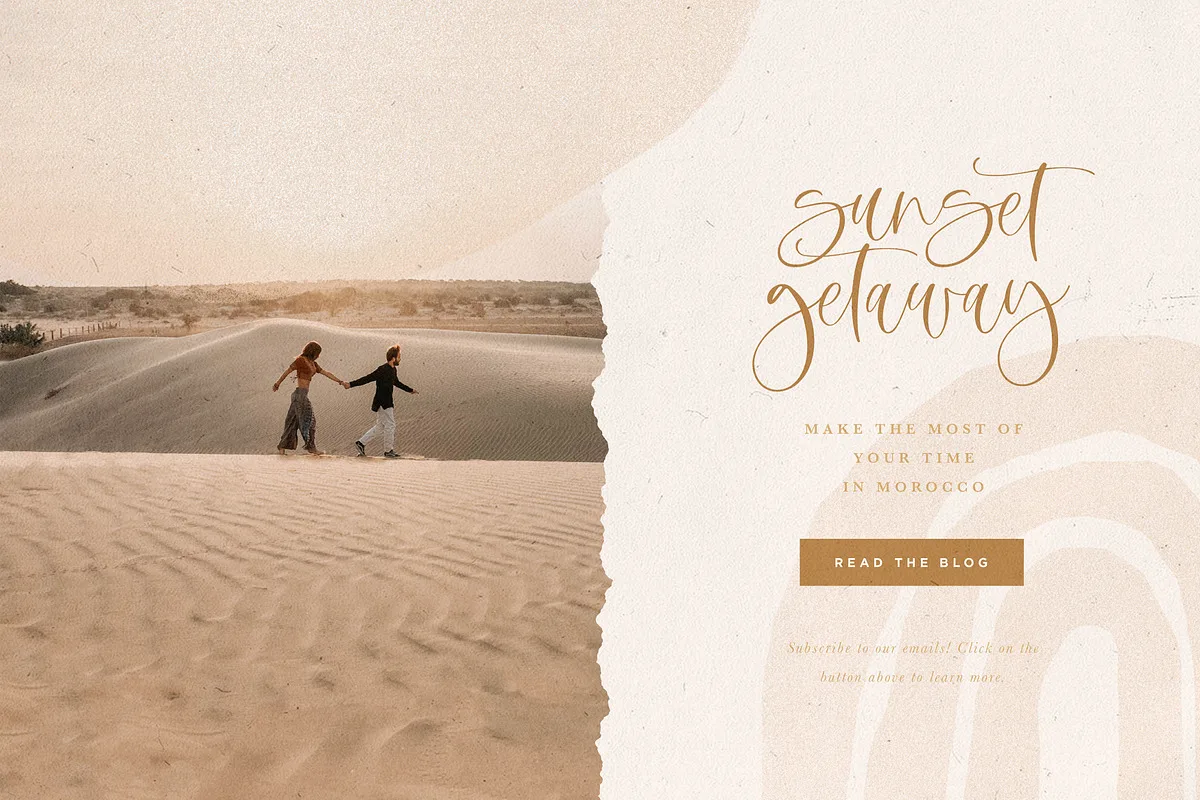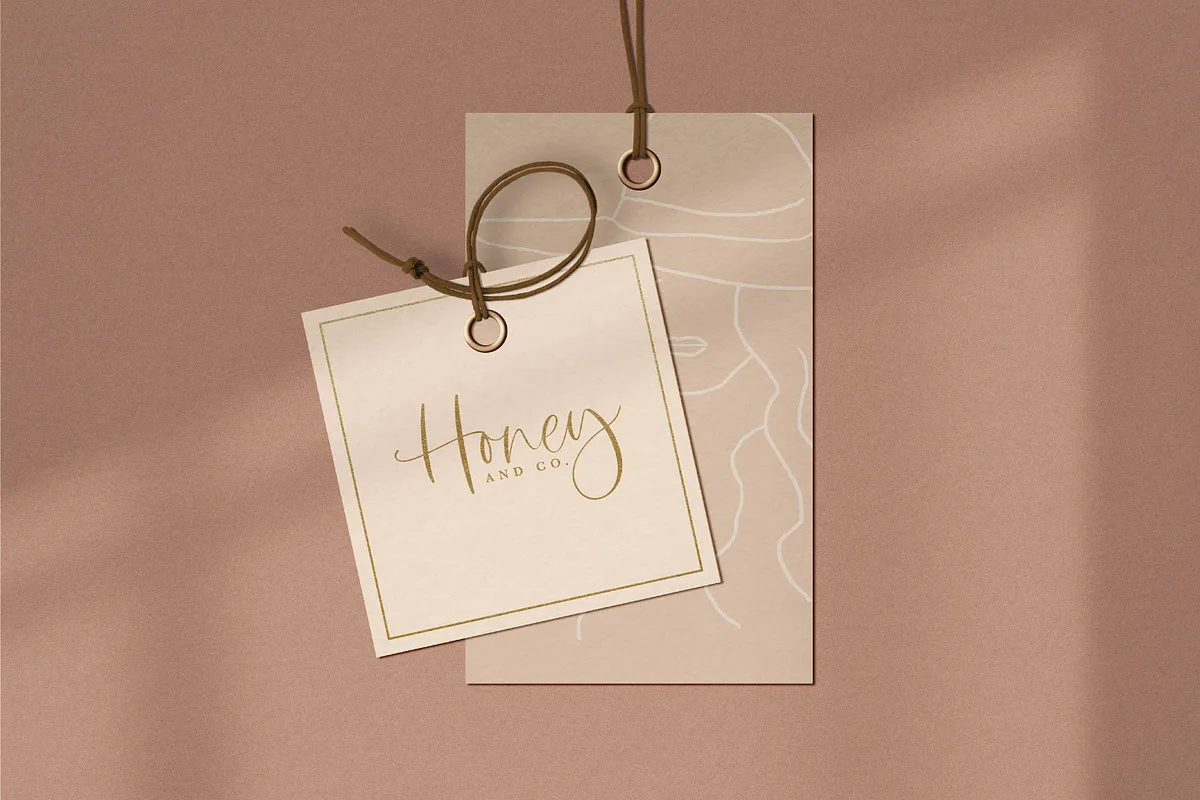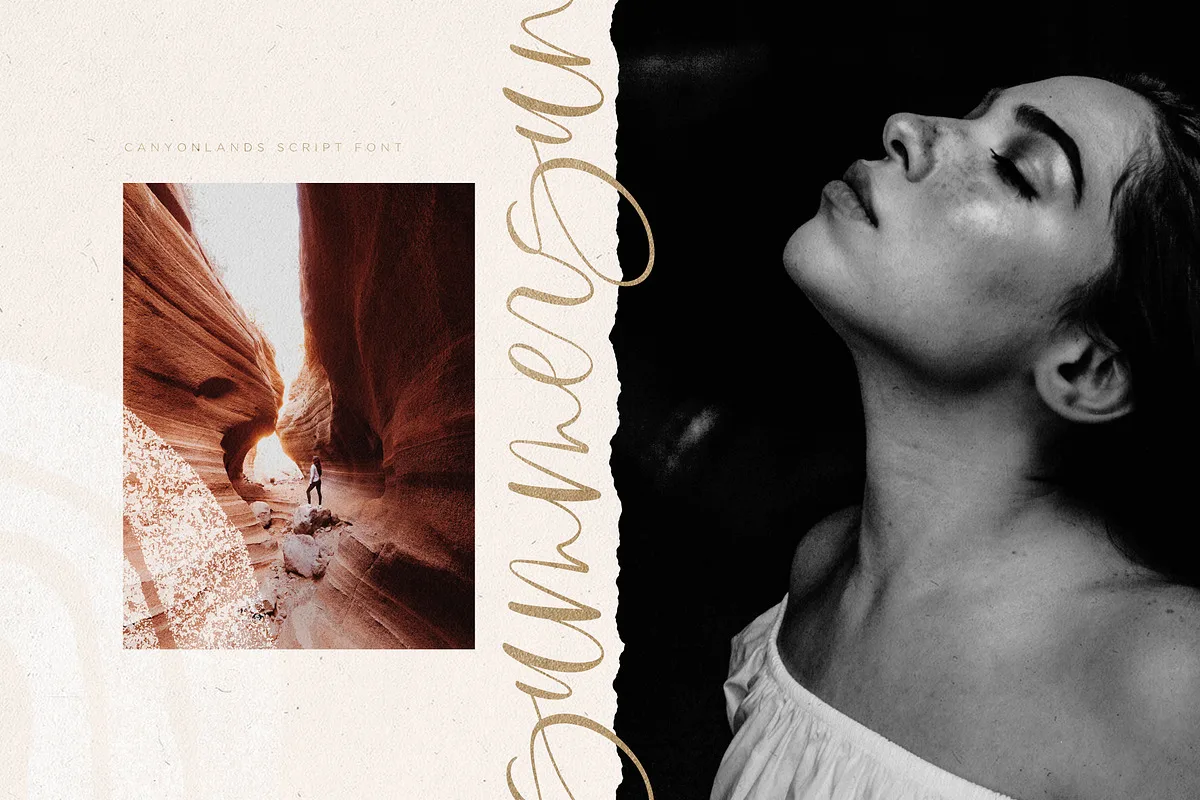
Canyonlands Font
Say hello to summer with the beautiful, new Canyonlands! This casual-chic, hand-lettered script font is perfect for styling logos, stationery, social media, websites and so much more!
Canyonlands Script Font
Canyonlands font preview — sample text
Canyonlands font alphabet, numbers and glyphs
Canyonlands font style preview